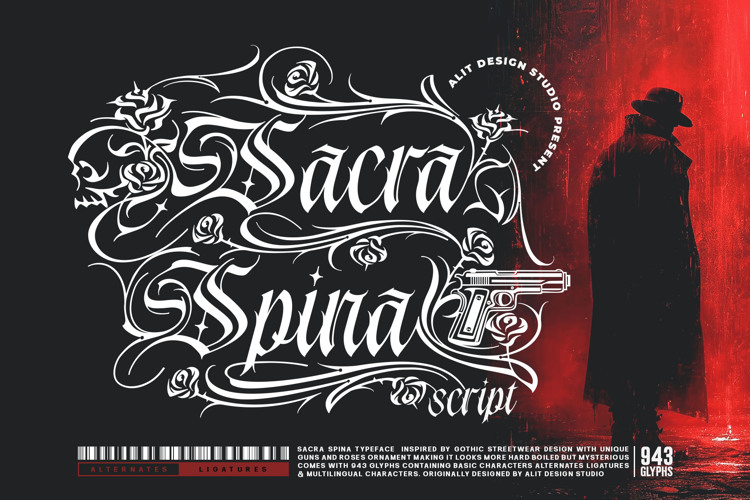
Sacra Spina Font
Sacra Spina | A Fierce Blackletter Typeface
Step into a world of shadow and intrigue with Sacra Spina, a blackletter typeface that bleeds attitude and sophistication.
Inspired by the raw energy of gothic streetwear and the clandestine world of classic mafia films, Sacra Spina is not just a font—it's a statement. It masterfully blends the timeless elegance of traditional blackletter calligraphy with a modern, rebellious edge. Every character is crafted to be both ornate and intimidating, making it the perfect weapon for designs that demand to be noticed.